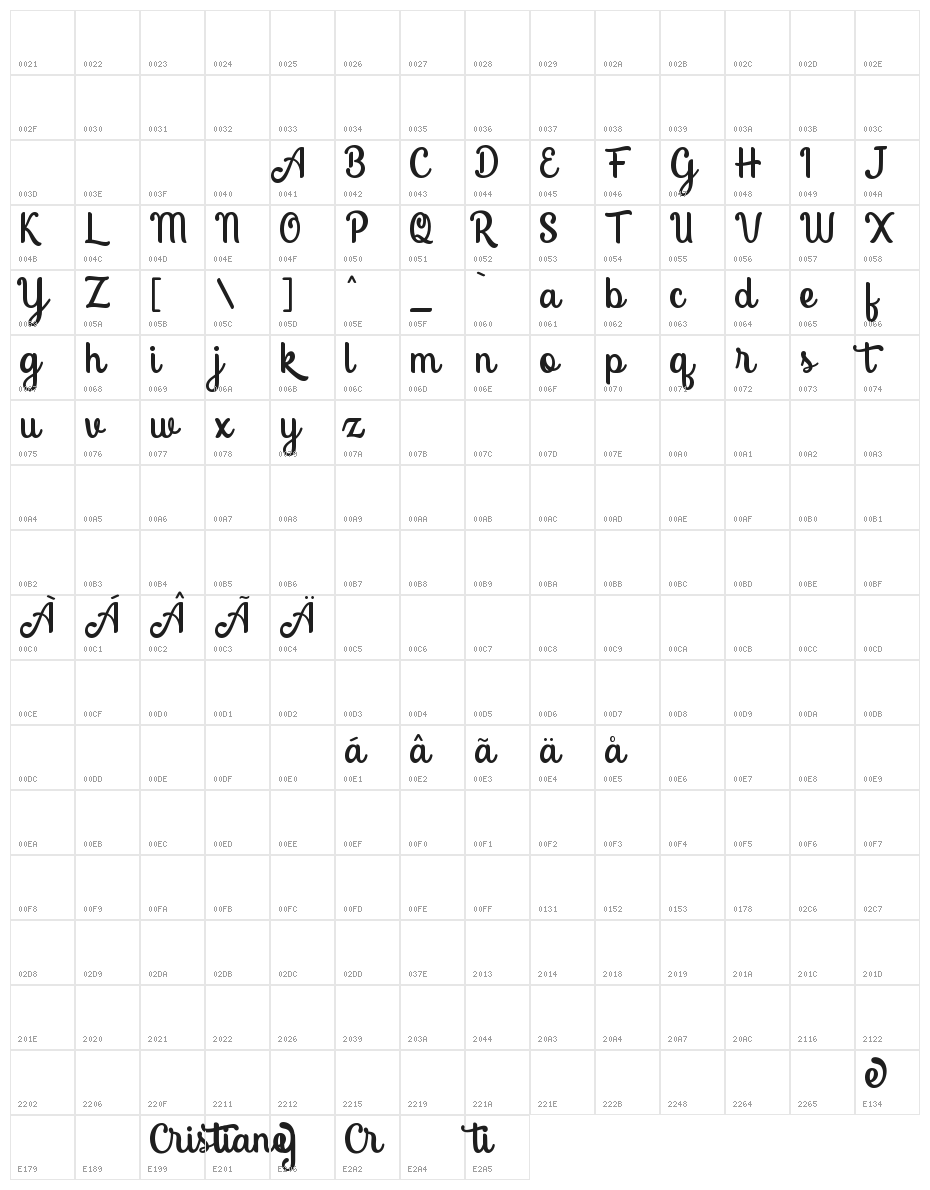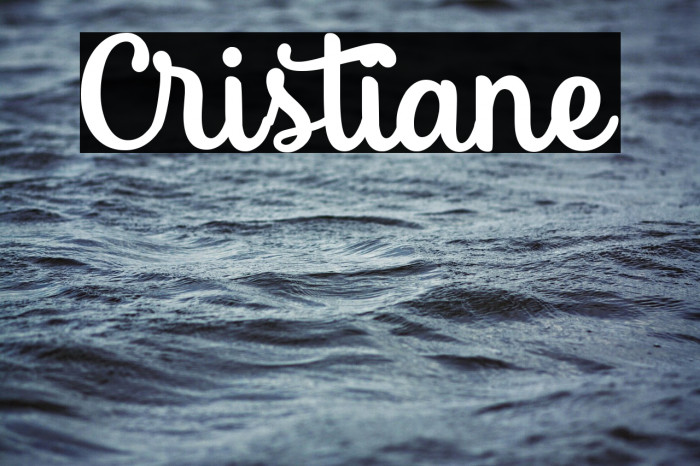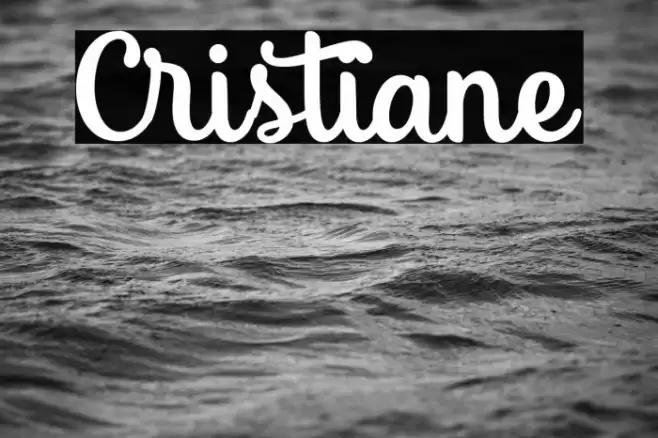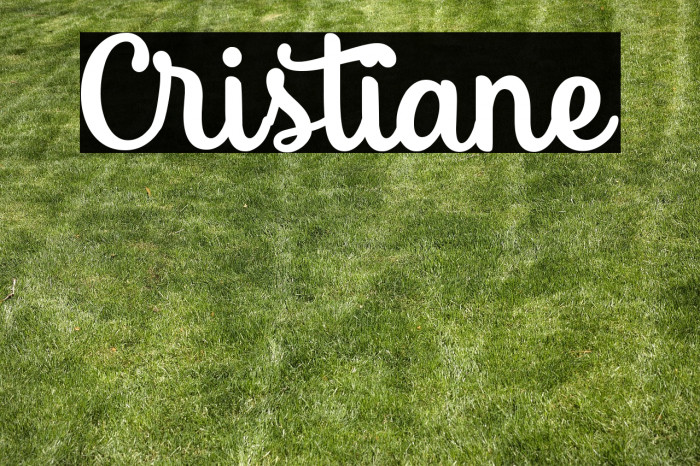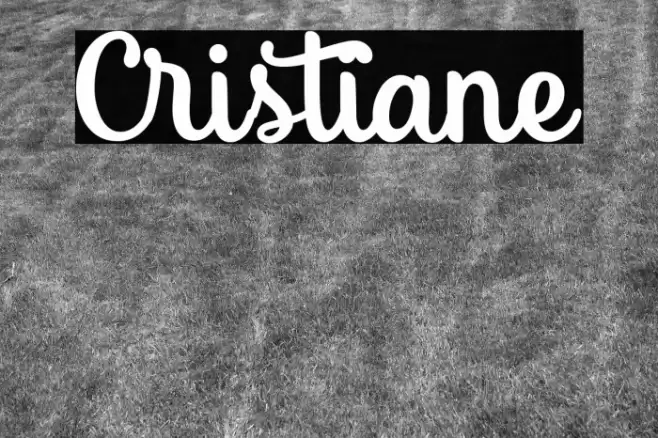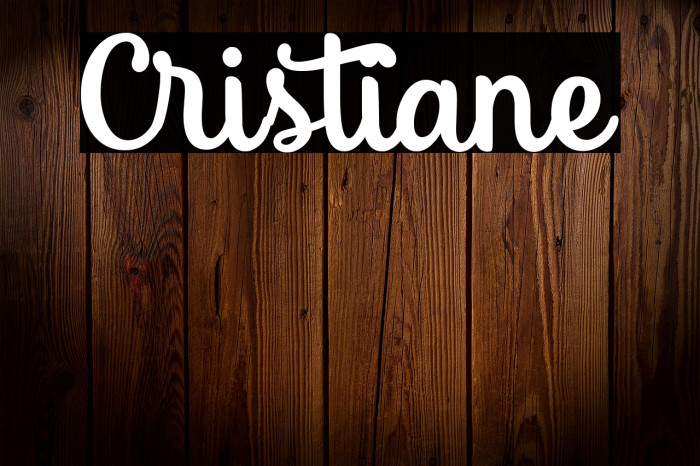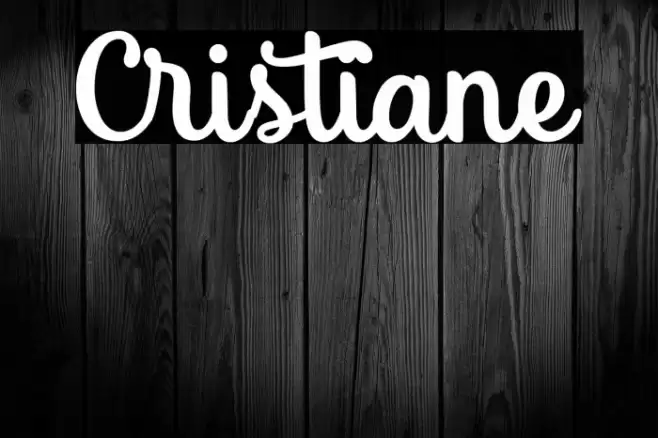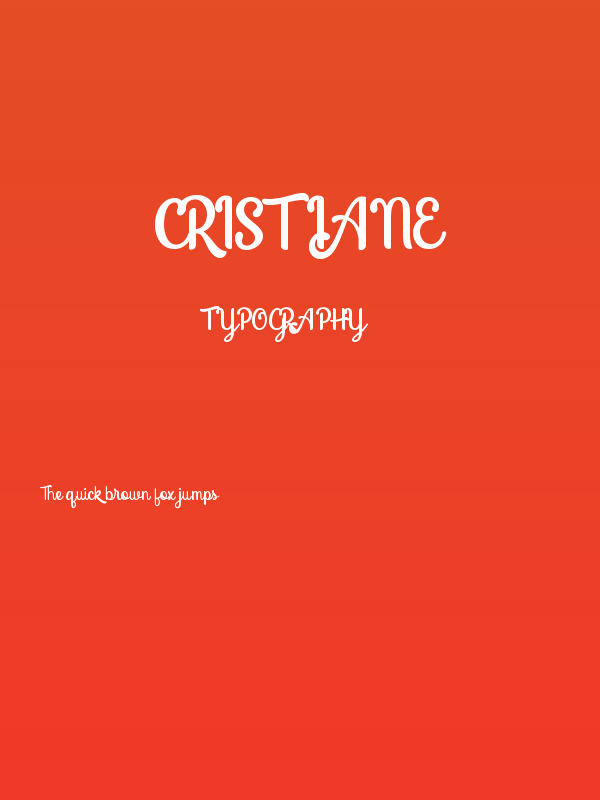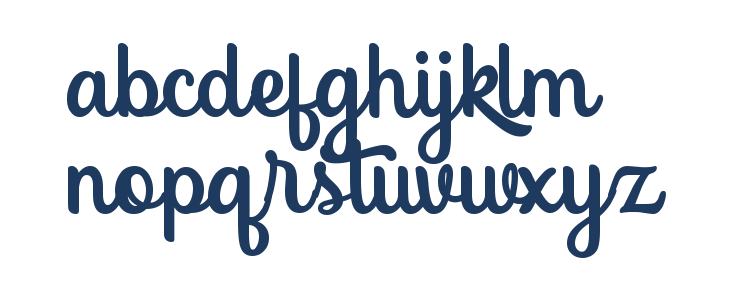
Cristiane Font
Cristiane Description
This font features a playful and flowing script style, characterized by its smooth, connected strokes that give it a handwritten appearance. The uppercase letters are bold and prominent, while the lowercase letters maintain a consistent flow with subtle loops and curves. The overall design is casual yet elegant, making it suitable for projects that require a personal touch. The characters are well-spaced, ensuring readability while maintaining the font's artistic flair. This font is versatile, lending itself well to both digital and print media.